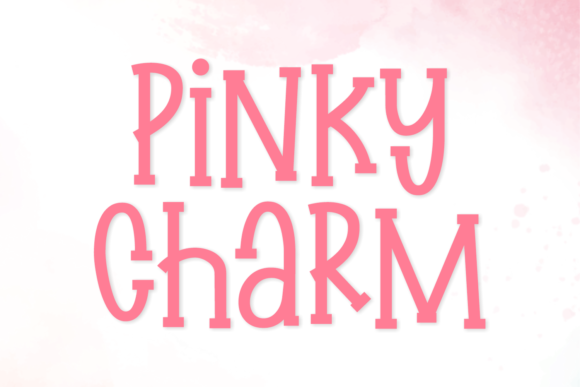
Feel the love and charm with Pinky Charm Font, the enchanting serif font that captivates hearts with its delicate strokes and cheerful vibes. Dive into a world of delightful creations as you explore the endless possibilities Pinky Charm offers.
Embark on a whimsical journey with Pinky Charm, a captivating font that dances across your designs, spreading joy and happiness. Its tall and slender letters exude a sense of elegance, while the playful curves add a touch of whimsy.
Immerse yourself in Pinky Charm's versatility, a font that effortlessly adapts to a myriad of projects. Whether you're crafting heartfelt Valentine's Day cards, designing eye-catching quotes, or creating captivating birthday invitations, Pinky Charm rises to the occasion, adding a touch of charm to every creation.
Unleash your creativity with Pinky Charm's boundless applications. Let your imagination soar as you design enchanting children's books, delightful covers that captivate readers, or vibrant posters that command attention. Pinky Charm transforms ordinary designs into extraordinary expressions of art.
Step into a realm of enchantment with Pinky Charm Font, where love, joy, and creativity intertwine. Discover the magic within your designs as Pinky Charm weaves its charm, leaving a trail of smiles and heartfelt connections. Embrace the charm today and let Pinky Charm ignite your creativity.